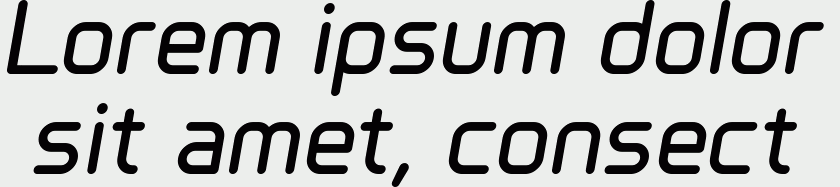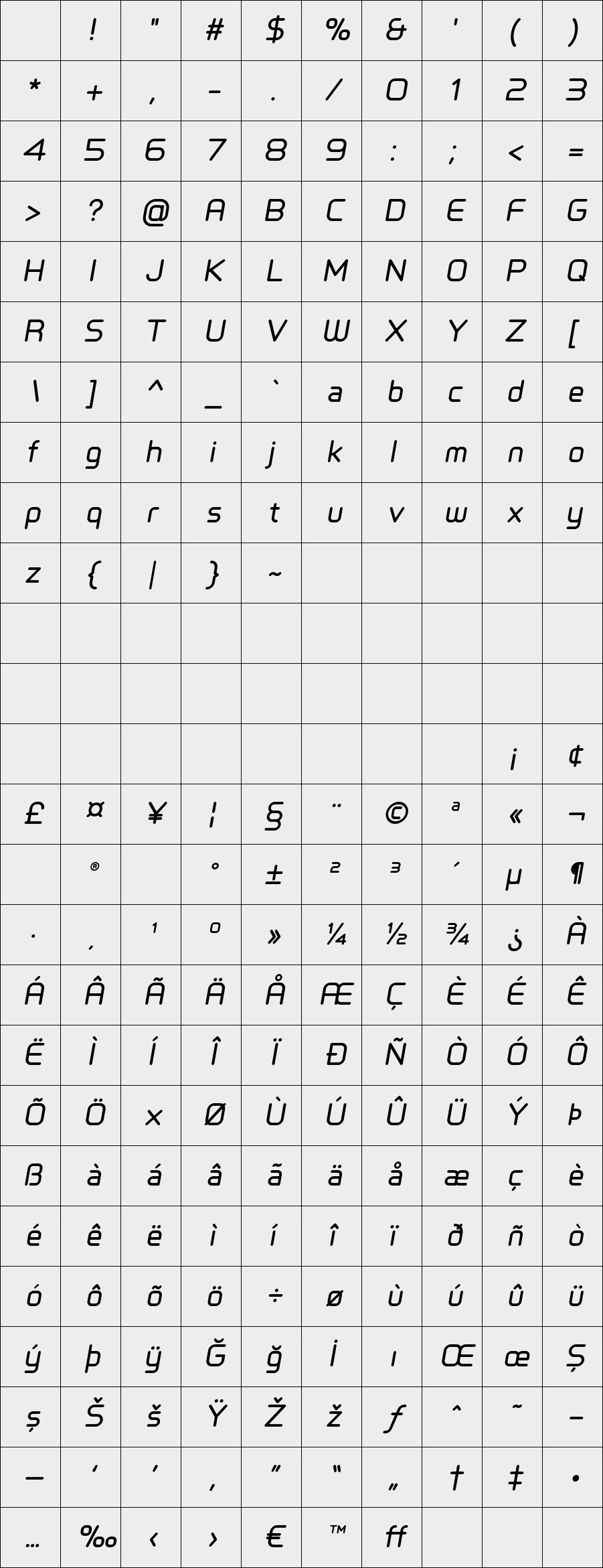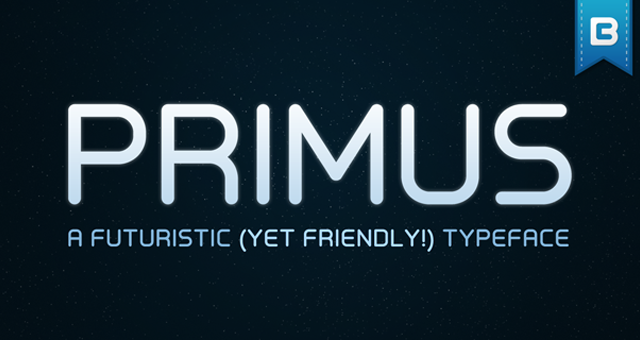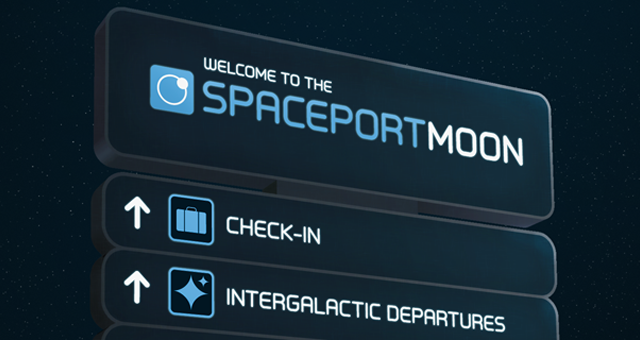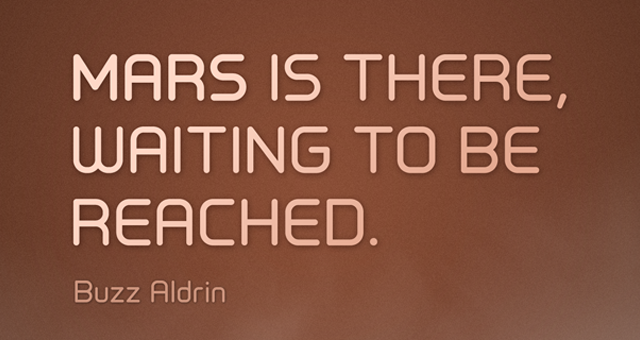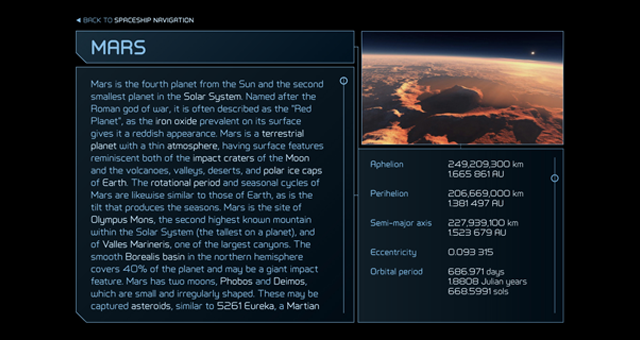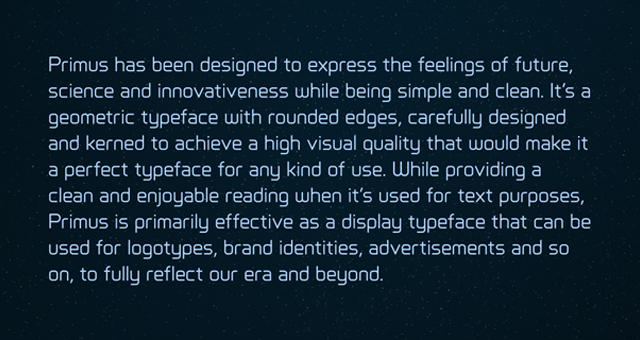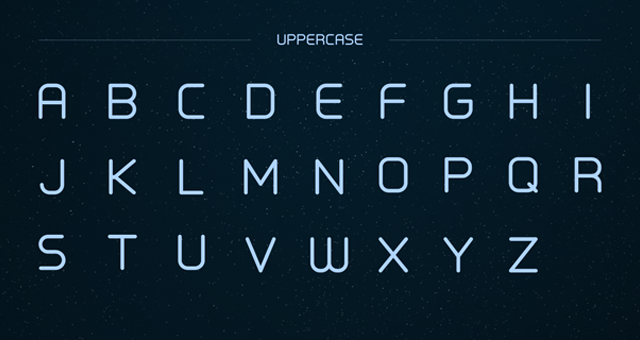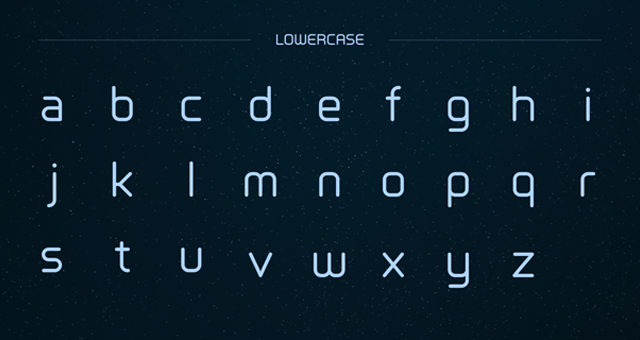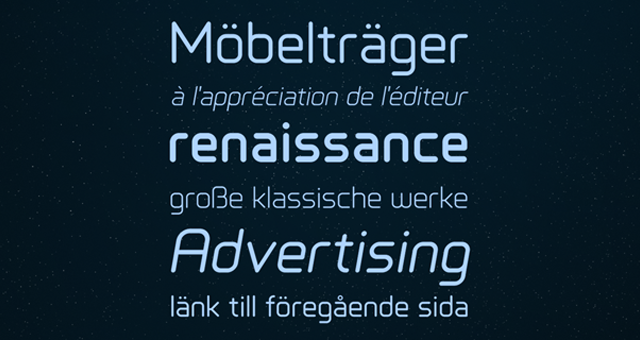
Primus
/ Primus Semibold Italic
Primus has been designed to express the feelings of future, science and innovativeness while being simple and clean. It’s a geometric typeface with rounded edges, carefully designed and kerned to achieve a high visual quality that would make it a perfect typeface for any kind of use. While providing a clean and enjoyable reading when it’s used for text purposes, Primus is primarily effective as a display typeface that can be used for logotypes, brand identities, advertisements and so on, to fully reflect our era and beyond.
Designer: Ceyhun Birinci